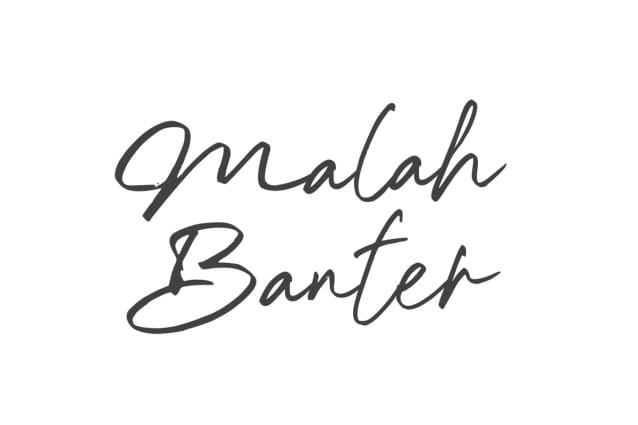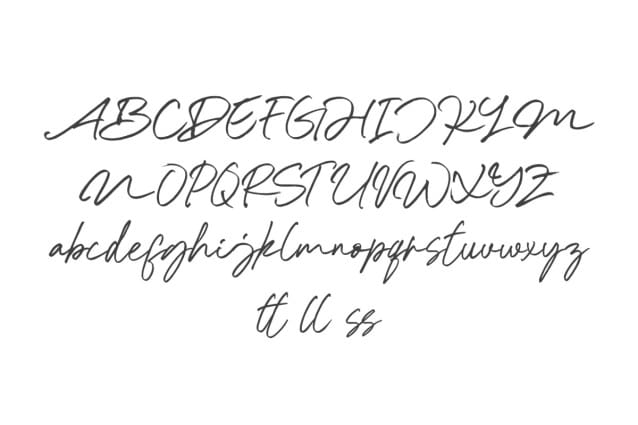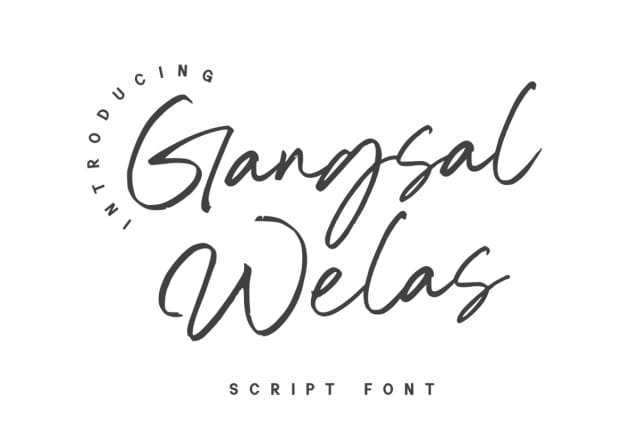
Gangsal Welas Font
Gangsal Welas Font, is a lovely flowing handwritten font. Fall in love with its incredibly versatile style and use it to create gorgeous wedding invitations, beautiful stationary art, eye-catching social media posts, and much more!